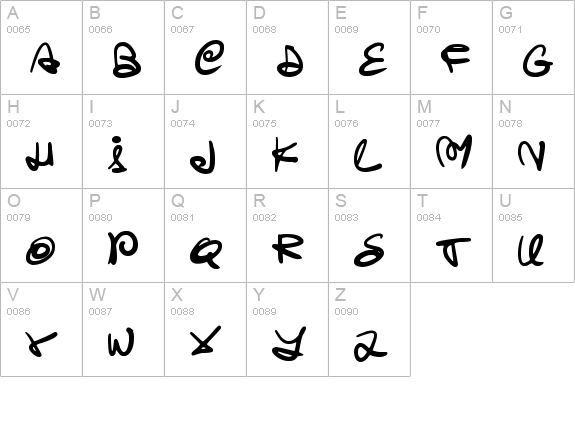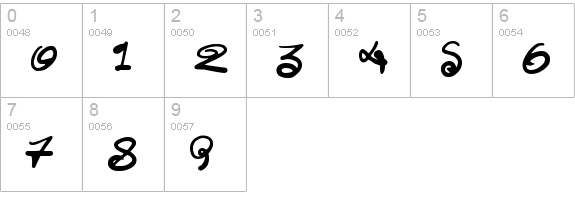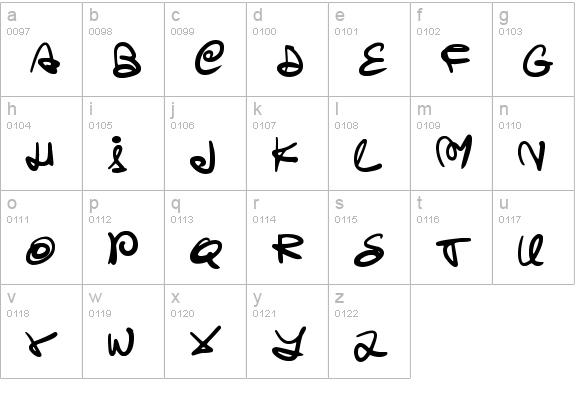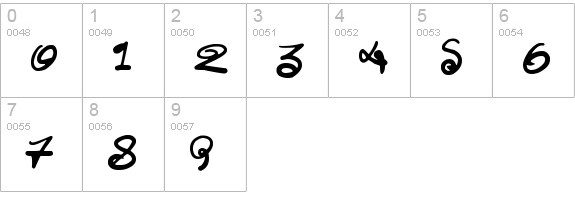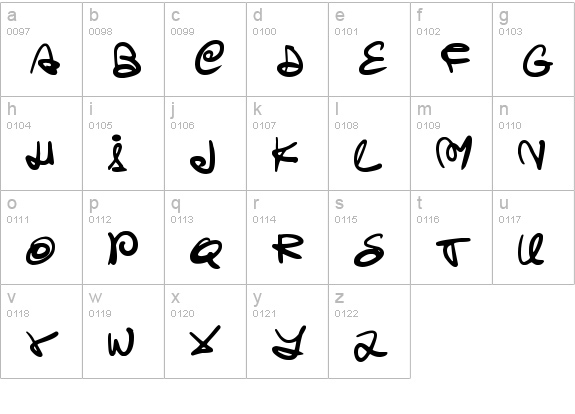
SwirlStory Font Details
Introducing SwirlStory font, a whimsical and elegant typeface that will add a touch of charm to your designs. With its graceful swirls and delicate curves, SwirlStory exudes a sense of sophistication and creativity. Whether you're working on a wedding invitation, branding project, or any other design that calls for a touch of elegance, SwirlStory is the perfect choice.